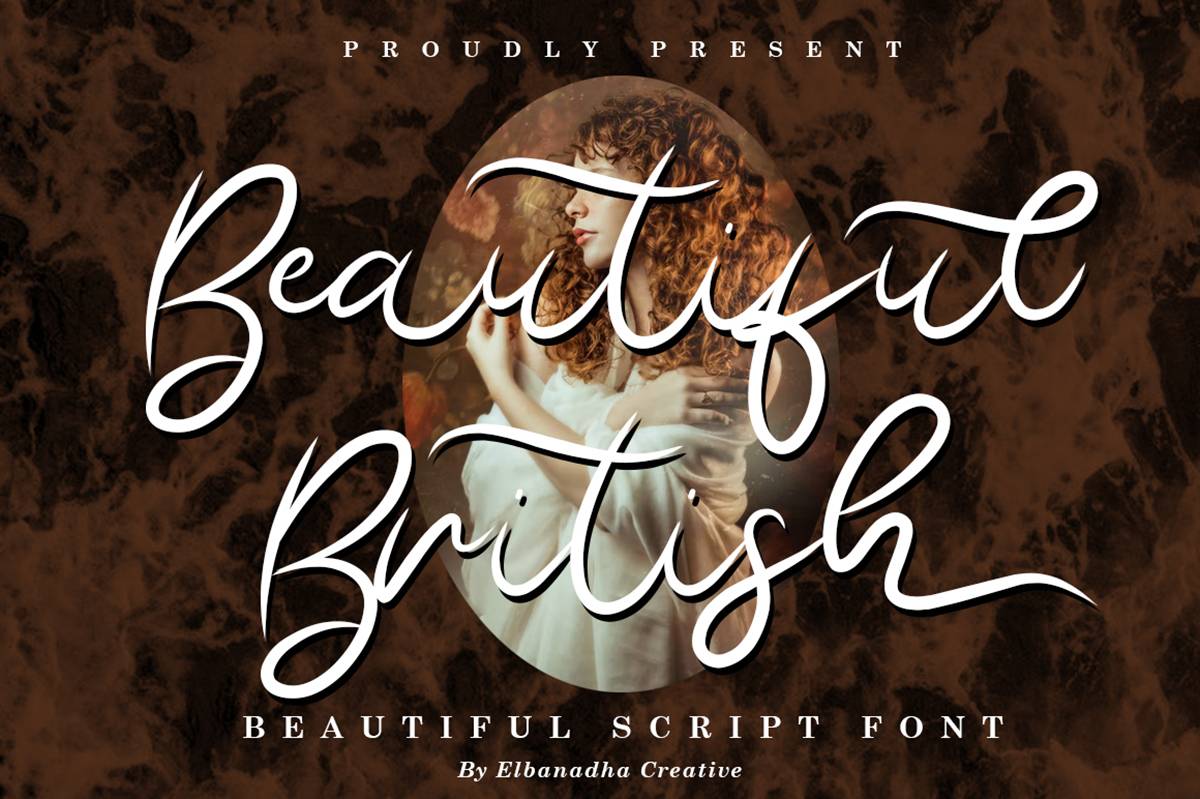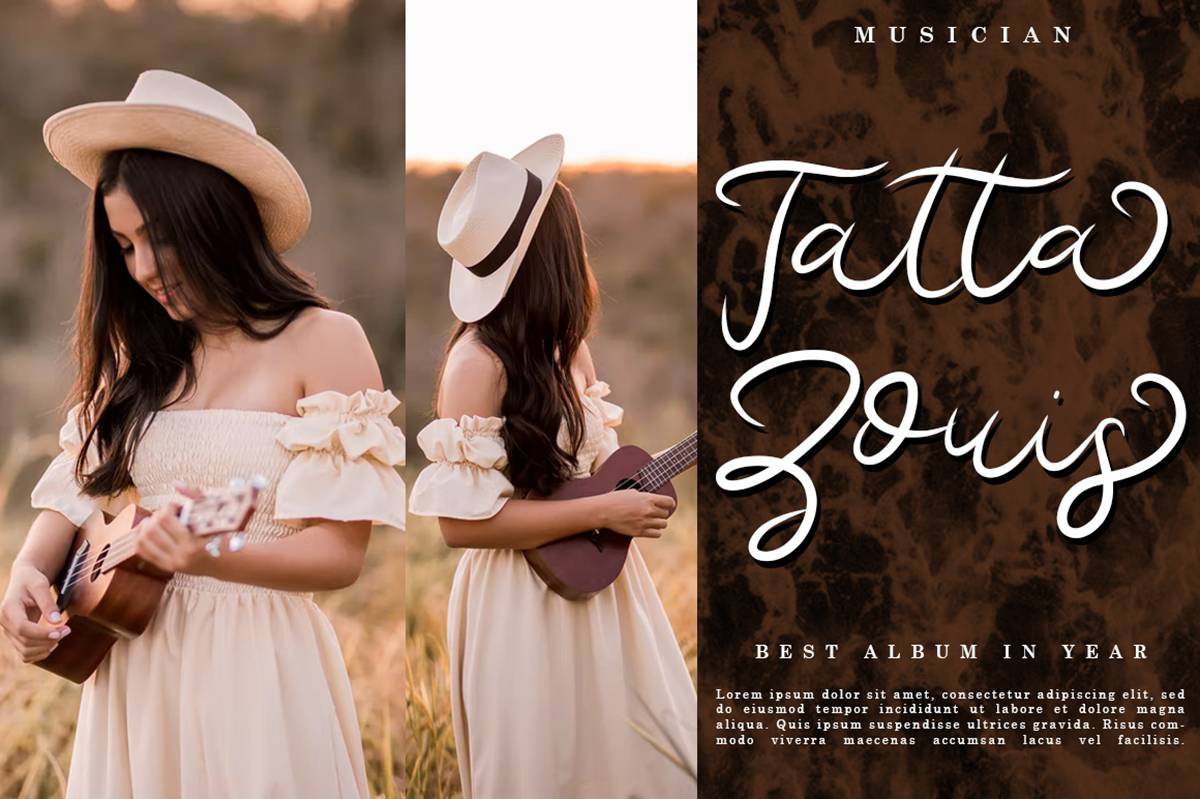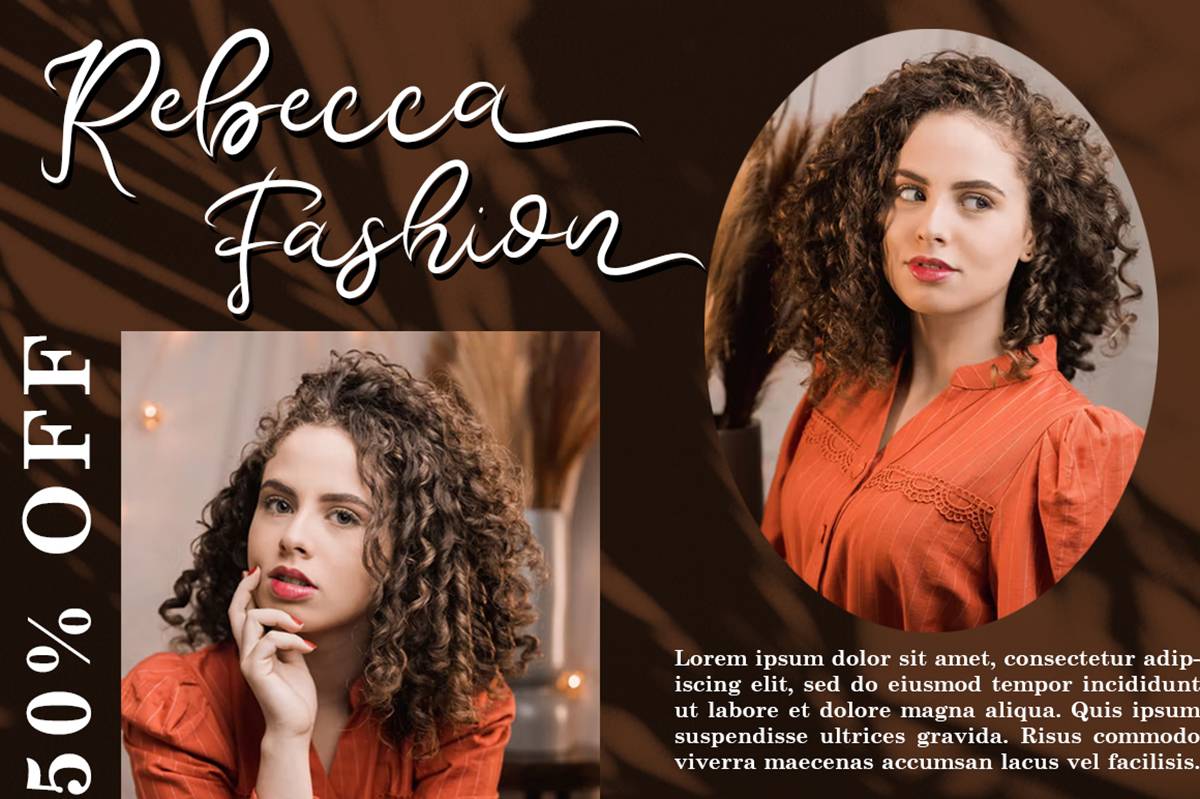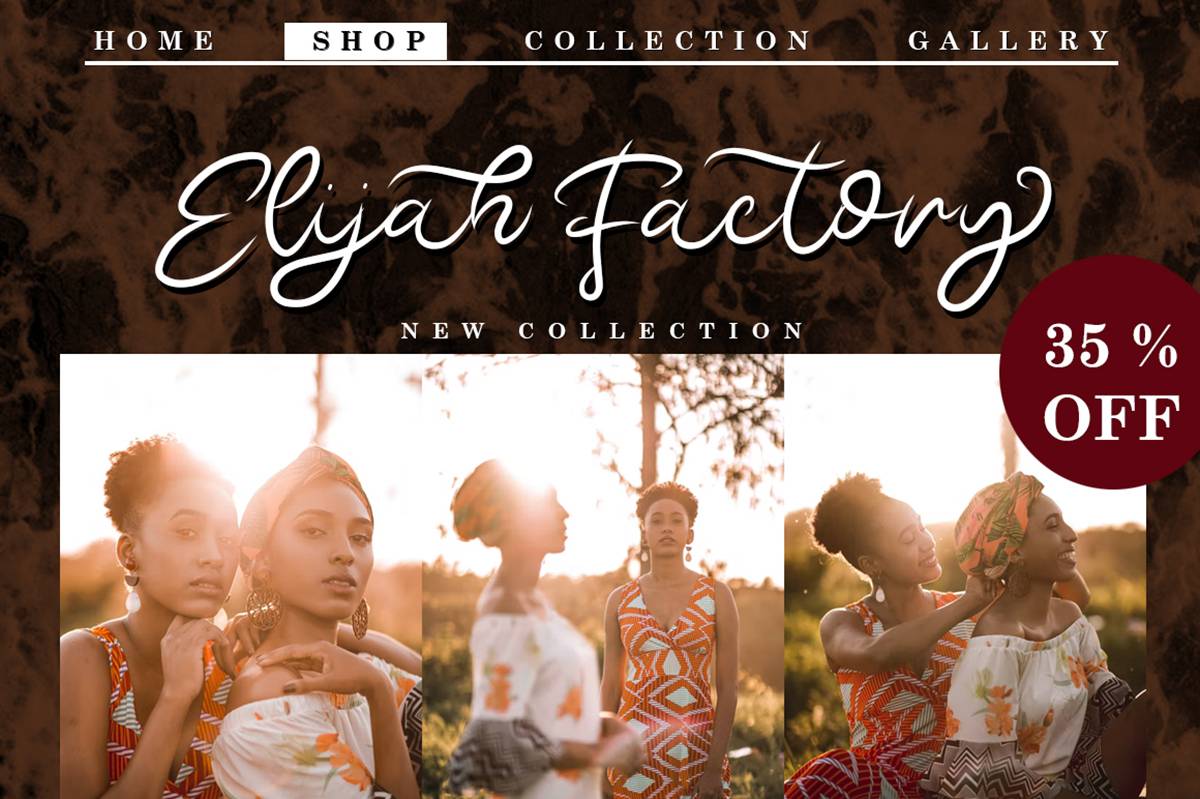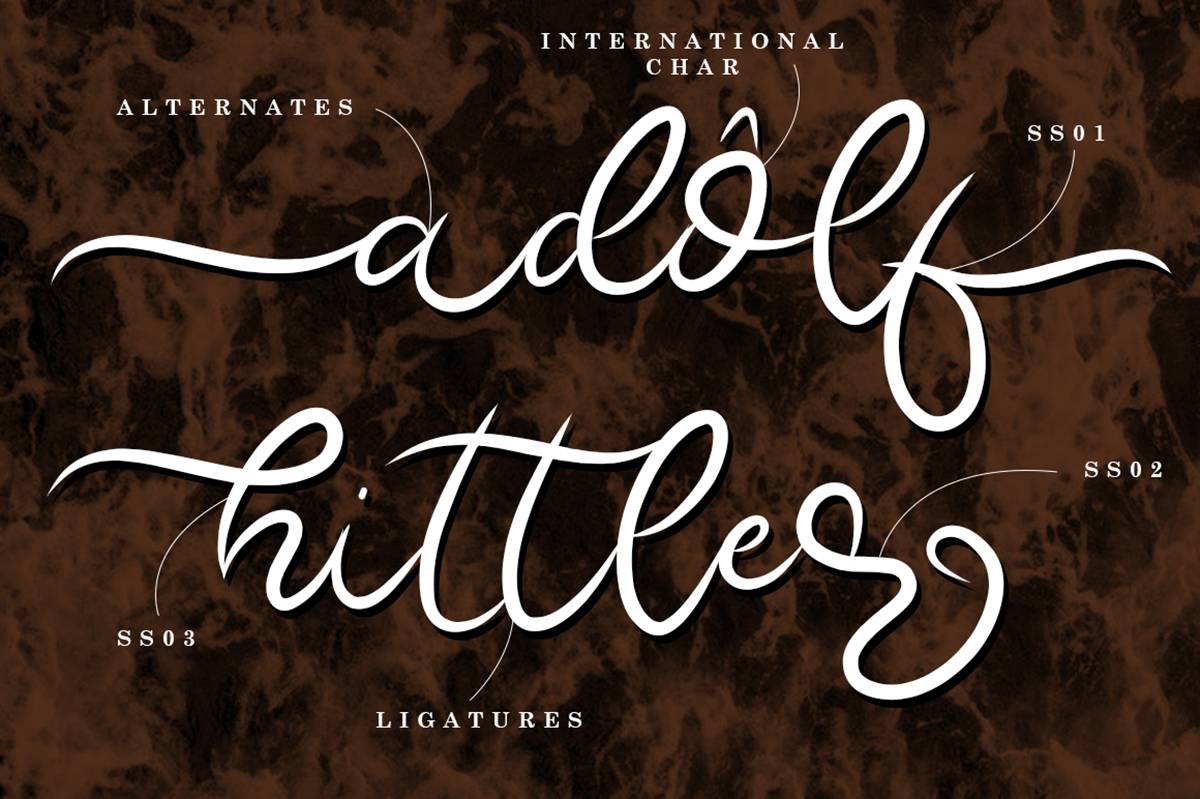
Beautiful Bristish Font is an elegant script typeface with a delicate, flowing style that mimics sophisticated handwriting. Its slender strokes and graceful curves give it a refined, romantic feel, making it ideal for invitations, branding, and creative projects that seek a personal, artistic touch. This font works best in display uses where its charm and fluidity can truly stand out.
Beautiful Bristish Font
About Beautiful Bristish Font
| Designer | Elbanadha Creative |